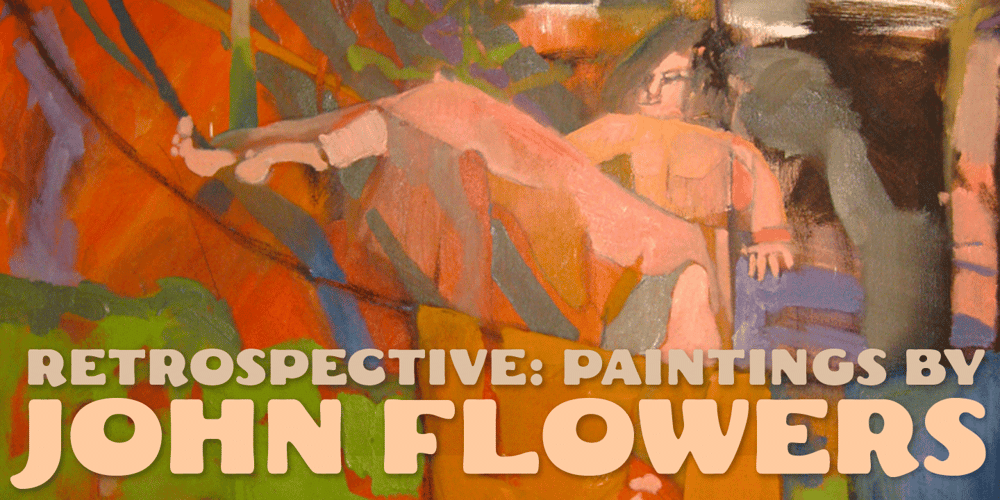
Fat Freddie Font Family was designed by Jason Castle and published by CastleType. Fat Freddie contains 1 styles and family package options. A bold, playful typeface named after my late and much-missed grey cat, Freddie, who was my best buddy for 18 years.